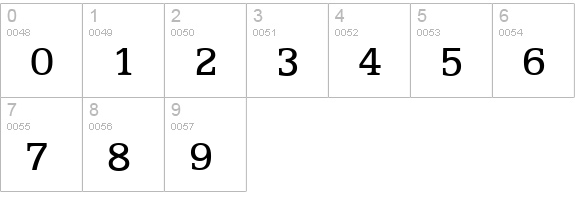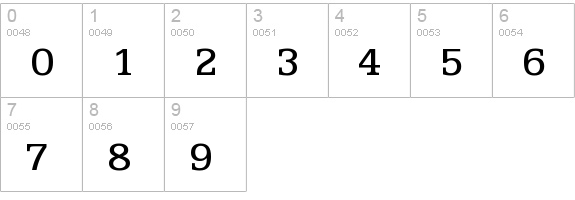
Egyptian-Text-Regular is the standard, neutral variant in the Egyptian typeface family \xE2\x80\x94 well suited to general body text, paragraphs, and standard typographic work.
The Egyptian-Text-Regular font is a timeless and elegant typeface inspired by the rich history and culture of ancient Egypt. Its bold, yet graceful letterforms make it perfect for adding a touch of sophistication to any design project. This versatile font is ideal for headlines, titles, and other display purposes, as well as for creating a sense of luxury and refinement. Best of all, Egyptian-Text-Regular is available for free download at FontsMarket.com. Whether you're working on a branding project, editorial layout, or website design, this font is sure to elevate your work and leave a lasting impression. Don't miss out on the opportunity to enhance your designs with this exquisite typeface, download Egyptian-Text-Regular today and unleash your creativity!